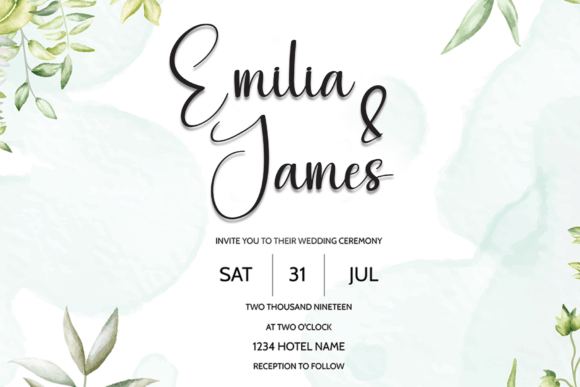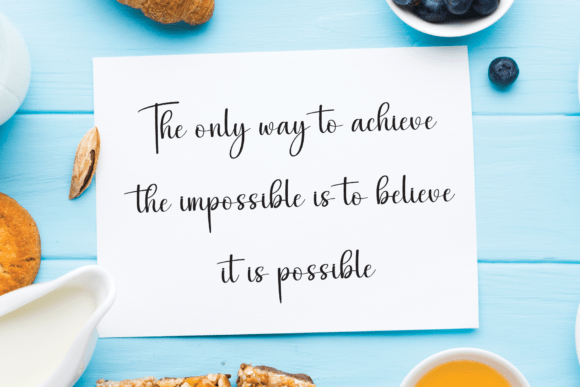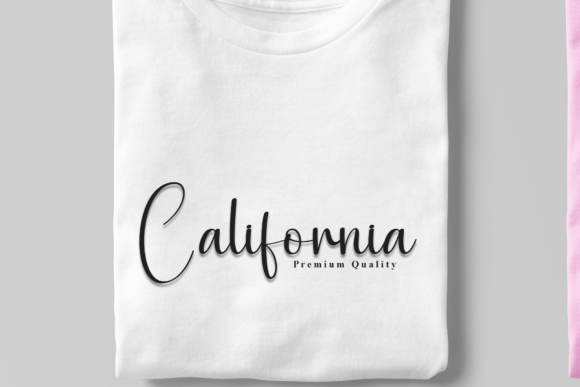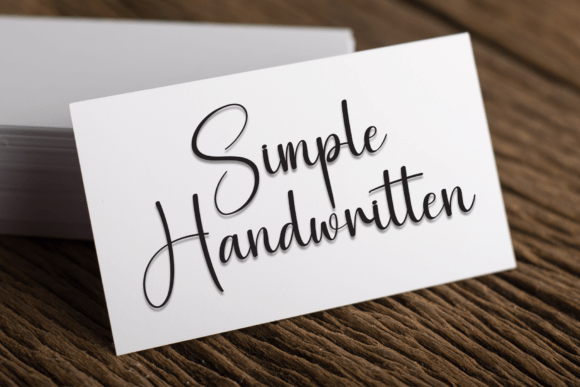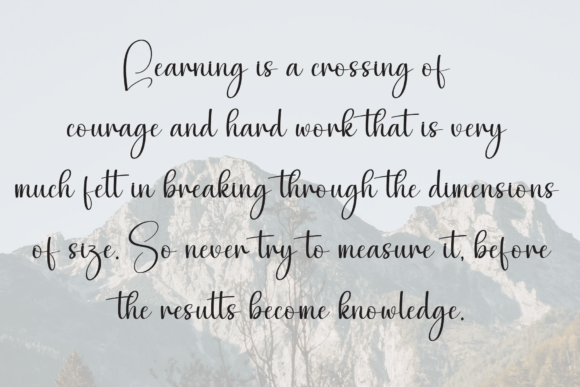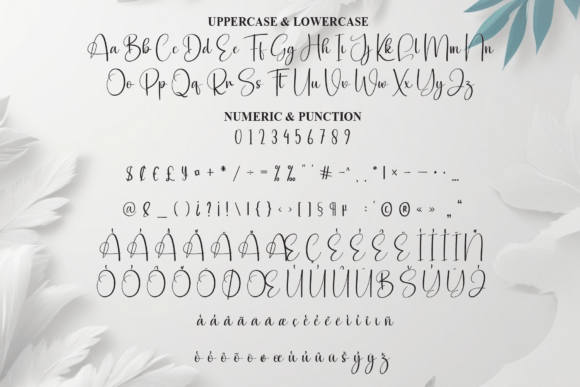
Introducing Brookly Font: Elevate Your Designs with Elegance and Fluidity
Brookly Font is a stunning handwritten script font that embodies the perfect blend of sophistication and charm. Its smooth, flowing strokes create a natural and refined feel, making it an ideal choice for designers and crafters looking to add a touch of elegance to their projects. Whether you’re working on branding, invitations, or creative endeavors, Brookly Font is sure to make a lasting impression.
The Characteristics of Brookly Font
Brookly Font boasts a range of characteristics that set it apart from other typefaces. Its handwritten script style is fluid and dynamic, with smooth strokes that create a sense of movement and energy. The font’s elegant and refined feel makes it perfect for projects that require a touch of sophistication, such as luxury branding, wedding invitations, and high-end product packaging.
Key Features of Brookly Font
- Elegant and Fluid Strokes: Brookly Font’s smooth, flowing strokes create a natural and sophisticated feel that’s perfect for a range of design applications.
- Handwritten Script Style: The font’s handwritten script style adds a personal and artistic touch to any design, making it ideal for projects that require a unique and creative approach.
- Charming and Modern: Brookly Font strikes the perfect balance between charm and modernity, making it suitable for a wide range of design projects, from traditional to contemporary.
- Highly Versatile: The font’s versatility makes it perfect for use in a variety of design applications, including branding, invitations, packaging, and more.
Uses for Brookly Font
Brookly Font is an incredibly versatile typeface that can be used in a wide range of design applications. Here are just a few examples of how you can use Brookly Font to elevate your designs:
- Branding: Use Brookly Font to create elegant and sophisticated brand identities that reflect your company’s values and personality.
- Invitations: Add a touch of elegance and refinement to your wedding invitations, party invites, and other special occasion designs with Brookly Font.
- Packaging: Use Brookly Font to create eye-catching and sophisticated packaging designs that stand out on store shelves.
- Digital Design: Brookly Font is perfect for use in digital designs, such as website headers, social media graphics, and email marketing campaigns.
Why Choose Brookly Font?
With so many typefaces to choose from, why should you choose Brookly Font for your next design project? Here are just a few reasons why Brookly Font stands out from the crowd:
- Unique and Creative: Brookly Font offers a unique and creative approach to typography, allowing you to add a personal and artistic touch to your designs.
- Elegant and Sophisticated: The font’s elegant and sophisticated feel makes it perfect for projects that require a touch of refinement and luxury.
- Highly Versatile: Brookly Font is incredibly versatile, making it suitable for use in a wide range of design applications.
Brookly Font is a stunning handwritten script font that offers a unique and creative approach to typography. Its elegant and sophisticated feel makes it perfect for a range of design applications, from branding and invitations to packaging and digital design. With its highly versatile and easy-to-use design, Brookly Font is sure to become a staple in your design toolkit. So why wait? Download Brookly Font today and start elevating your designs with elegance and fluidity.